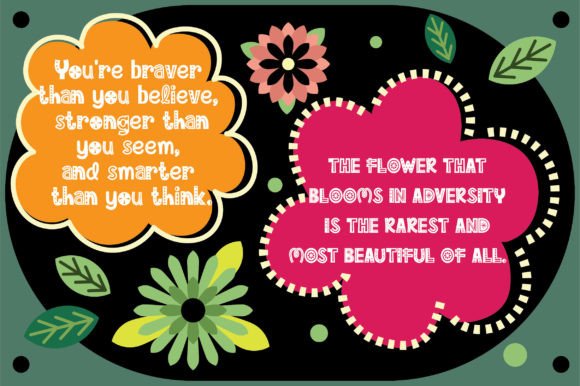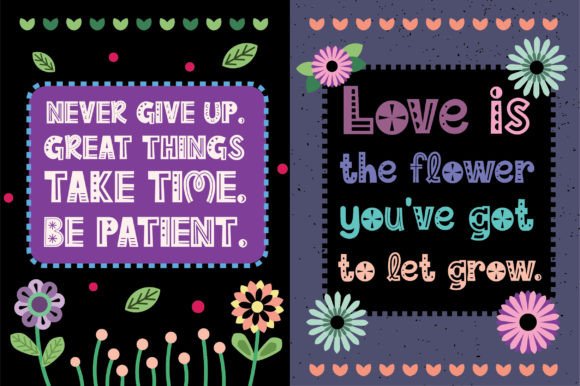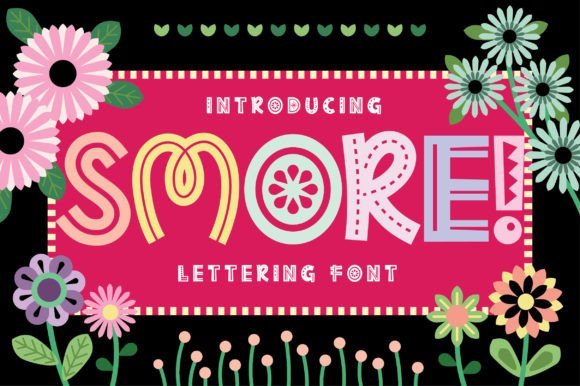
Introduction to Smore Font
Smore is a quirky display handwritten font suitable for a large variety of design ideas.
Add it confidently to your projects and you will love the results .
Why Choose Smore Font?
Smore Font offers exceptional quality and versatility, making it a valuable addition to your design toolkit. Whether you’re creating for personal projects or commercial use, Smore Font delivers professional results.